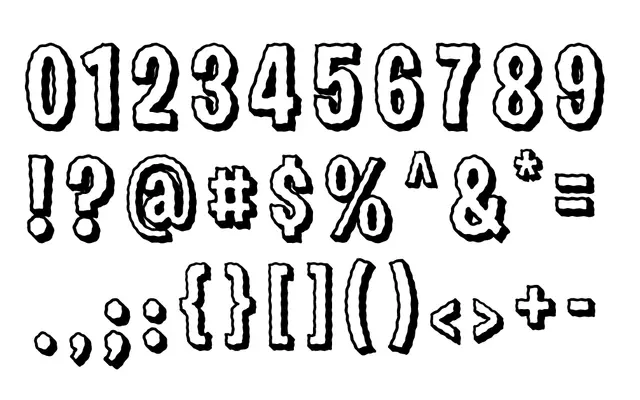
NCBC Display
JP Flexner · JP Flexner
A hand-inked display face drawn for Neshaminy Creek Brewing Company, channelling underground comics and early-90s East Bay punk record aesthetics.
Originally created as part of illustration work for Neshaminy Creek Brewing Company, this face is hand-inked throughout, with dense kerning and a built-in drop-shadow that keeps it readable against busy or chaotic backgrounds. The designer cites ZAP Comics and East Bay punk records circa 1992 as its tonal reference points. Best suited to packaging, poster work or any setting where rough-edged energy is the point.
A hand-inked display face with drop-shadow and dense kerning, designed for high-impact pairings with illustration; sits firmly in the display category with an expressive, vernacular hand-lettering subcategory.